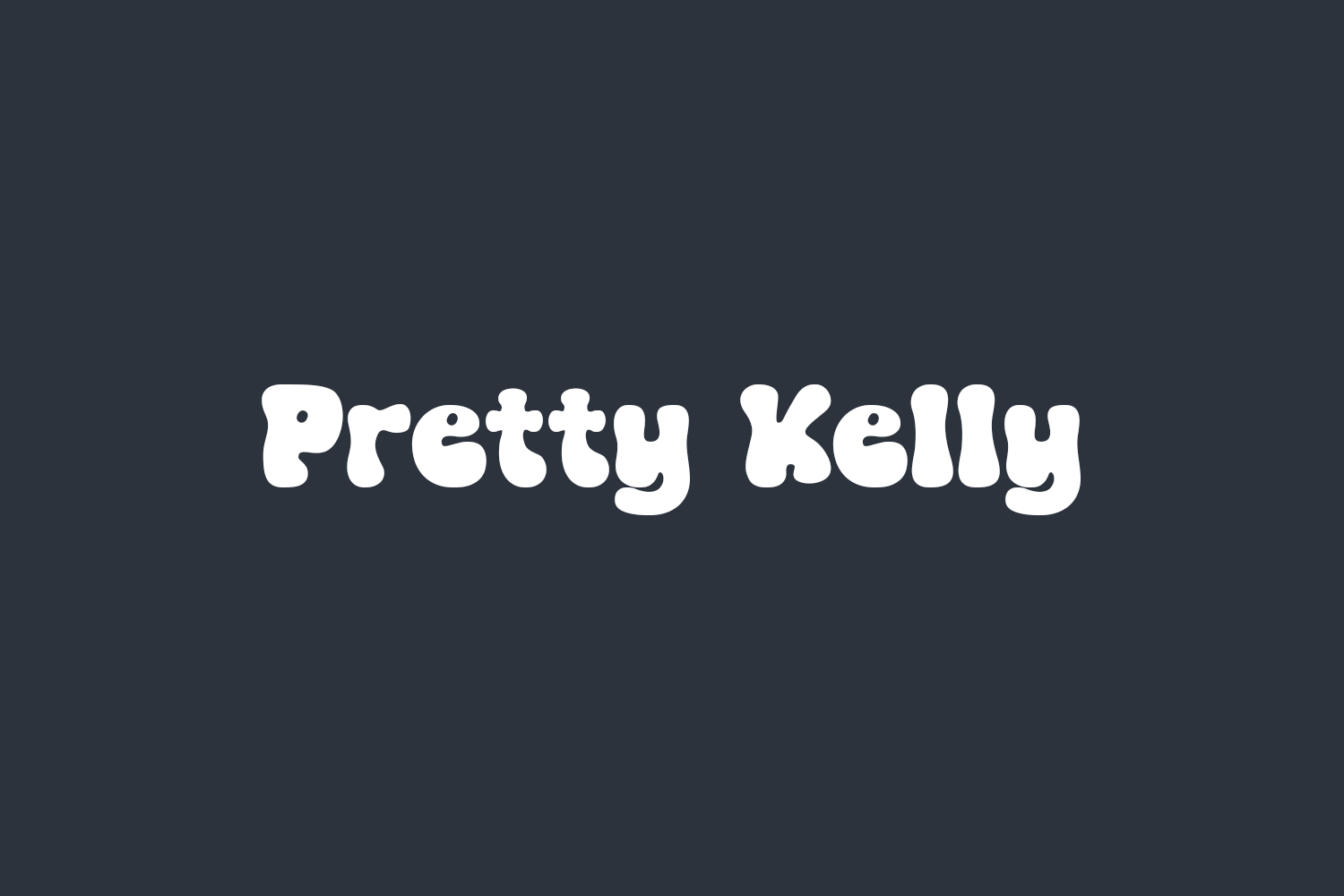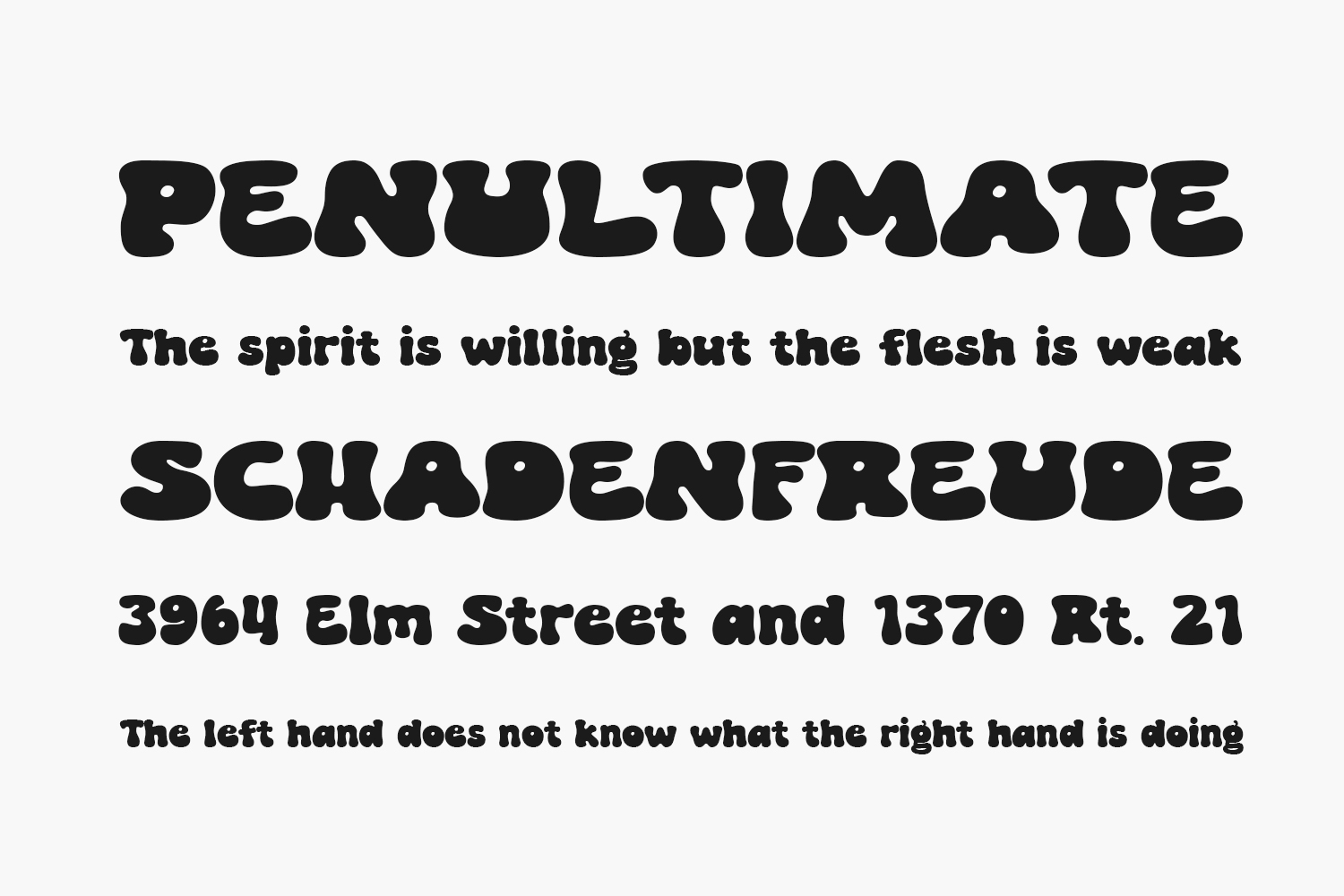
Pretty Kelly – Free Cute Retro‑Groovy Display Font
Pretty Kelly is a playful and bold retro‑groovy display typeface created by Rian Dryana. With its chunky, rounded letterforms, whimsical alternates, and energetic curves, it evokes a nostalgic 1970s vibe while staying fresh and fun. Ideal for posters, album covers, kids’ branding, social media graphics, and more, it includes uppercase, lowercase, ligatures, alternates, and multilingual support across ~237 glyphs. Available in TTF, free for personal use; commercial licensing can be acquired via Creative Market or Creative Fabrica.
Why Choose Pretty Kelly?
- Retro-Groovy Style: Chunky, rounded letterforms channel nostalgic ’70s flair with playful attitude.
- Versatile & Whimsical: Features alternates, ligatures, and multiple glyphs for creative designs.
- High Visual Impact: Bold weight and tight spacing make it perfect for headlines and headlines-only use cases.
Where to Use Pretty Kelly?
- Event Posters & Flyers: Eye-catching for concerts, festivals, and parties.
- Album & Book Covers: Retro charm for creative covers and themed projects.
- Kids’ Products & Packaging: Fun and friendly design for toys, books, or food brands.
- Social Media & Blog Graphics: Great for Instagram posts, YouTube thumbnails, and Pinterest quotes.
- Branding & Logos: Bold wordmarks suited to boutique or playful brands.
Design Tips with Pretty Kelly
Use Pretty Kelly at large display sizes (≥36 pt) to emphasize its bubbly shapes. Pair with minimalist sans‑serifs like Alesand or Alcefun for balance. Choose retro palettes—earthy oranges, mustard, teal—or high‑contrast black and white. Play with ligatures and alternate forms to add character and uniqueness.
Designed by Rian Dryana